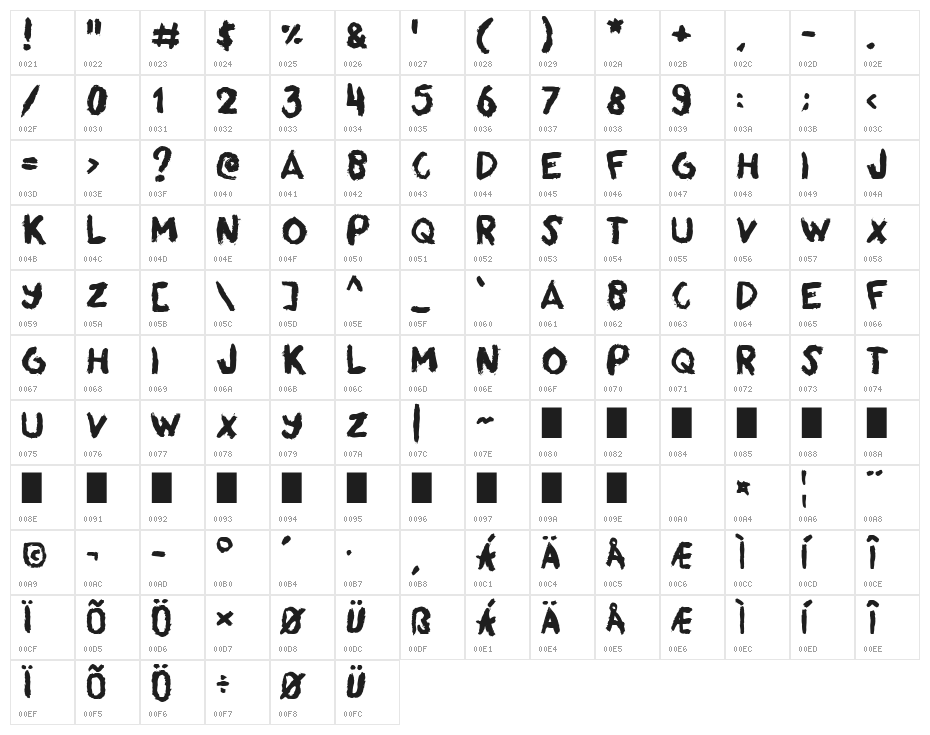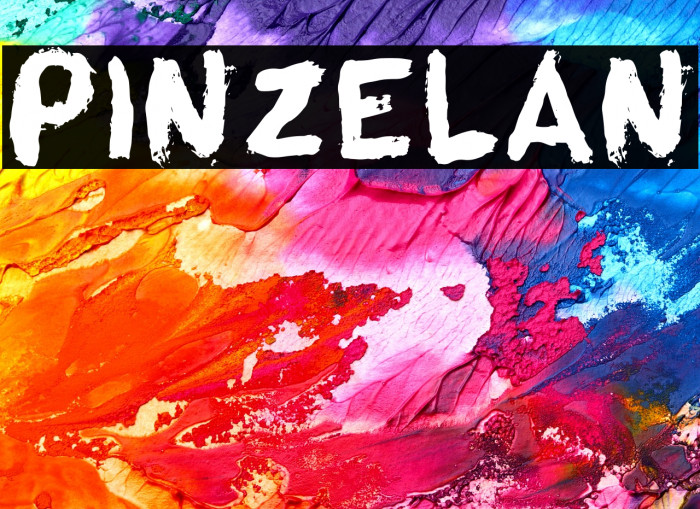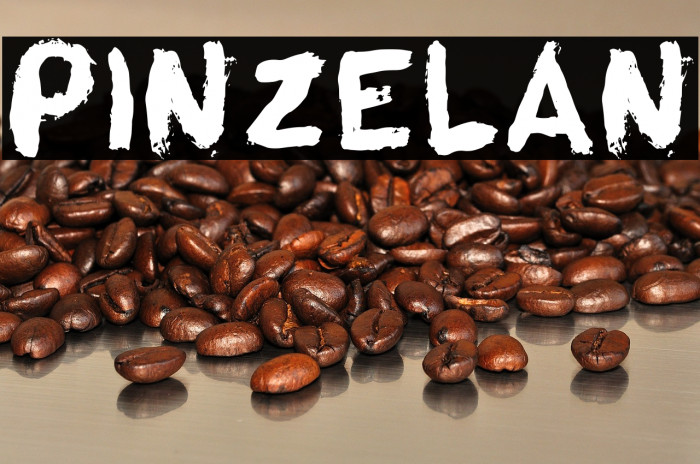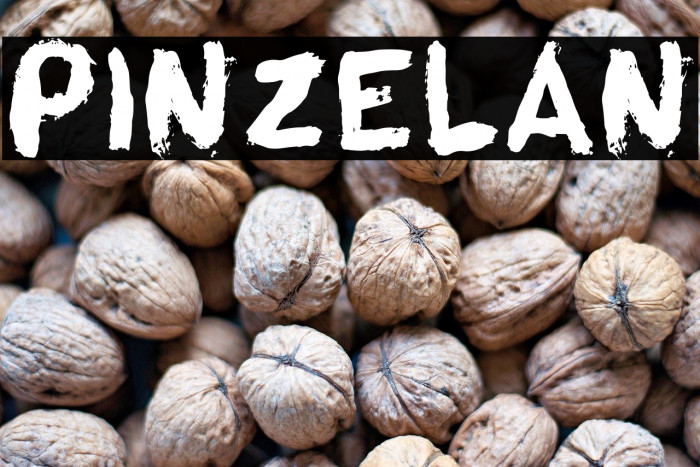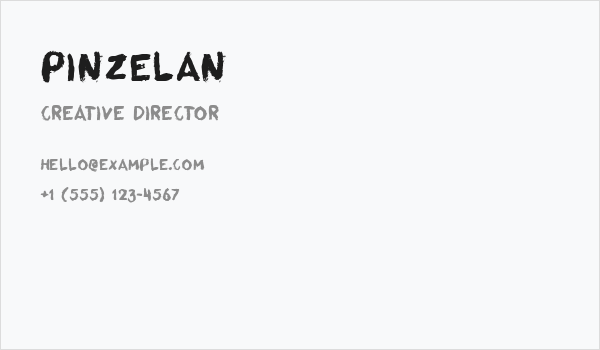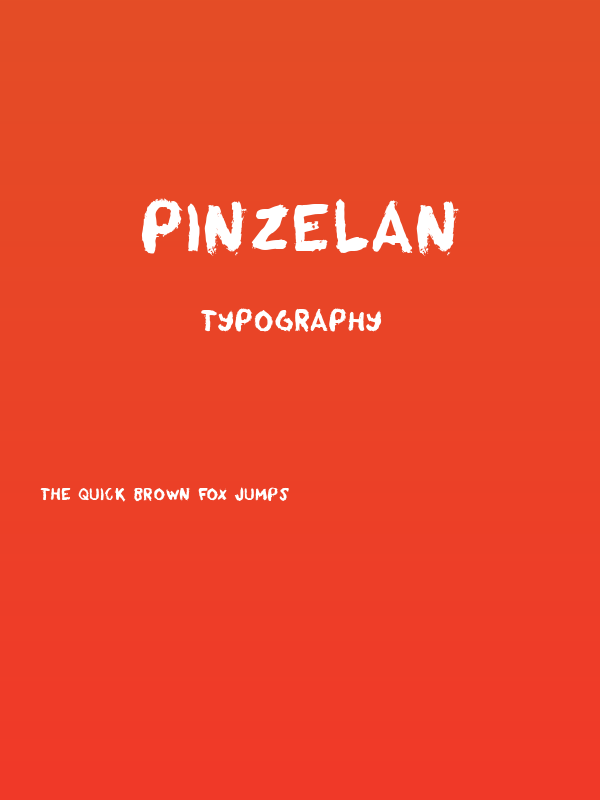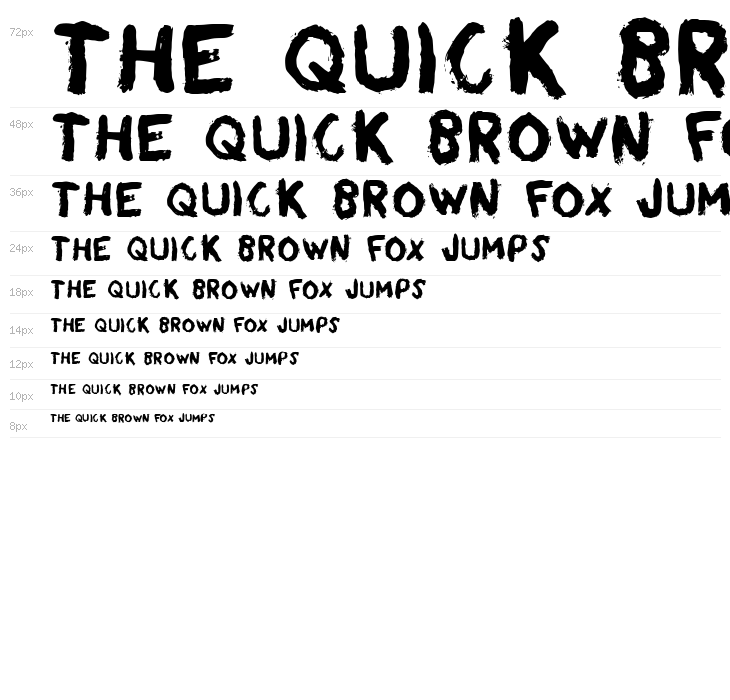
Pinzelan Font
Pinzelan Description
This font exhibits a bold and expressive brush style, characterized by its thick, uneven strokes that convey a sense of energy and dynamism. The letters have a hand-painted appearance, with irregular edges and varying stroke widths that add to its artistic flair. The uppercase and lowercase letters maintain a consistent style, while the numerals and special characters integrate seamlessly, enhancing the font's versatility. Its bold presence makes it ideal for creating impactful designs that require a touch of creativity and individuality.
| Use Case | Logos, Headlines, Posters |
| Proposed Projects | Ideal for artistic projects, posters, branding, and any design requiring a bold, creative touch. |